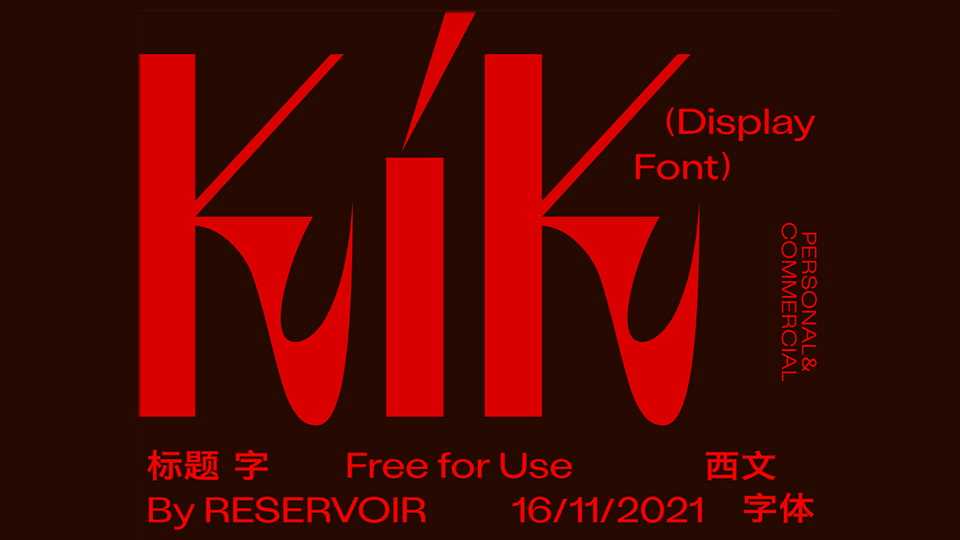
Download KIK font, a sharp, edgy, blazing, straightforward display typeface that feels freezing, tense, ego, rebellious… KIK is inspired by the youth, Tarantino movies, rock music and justice.